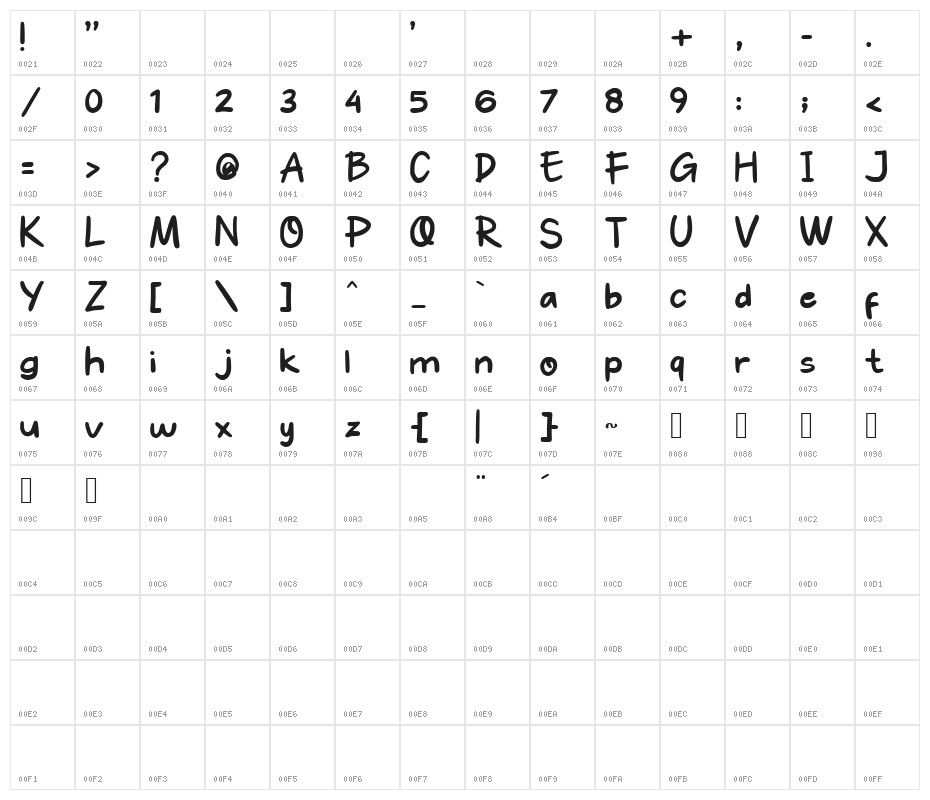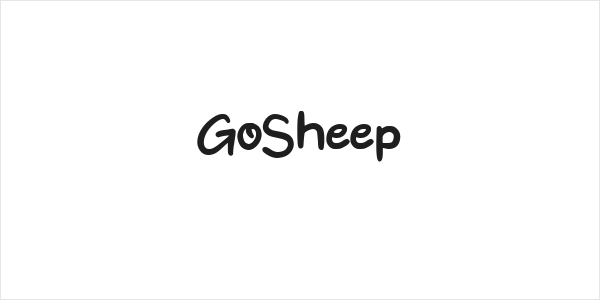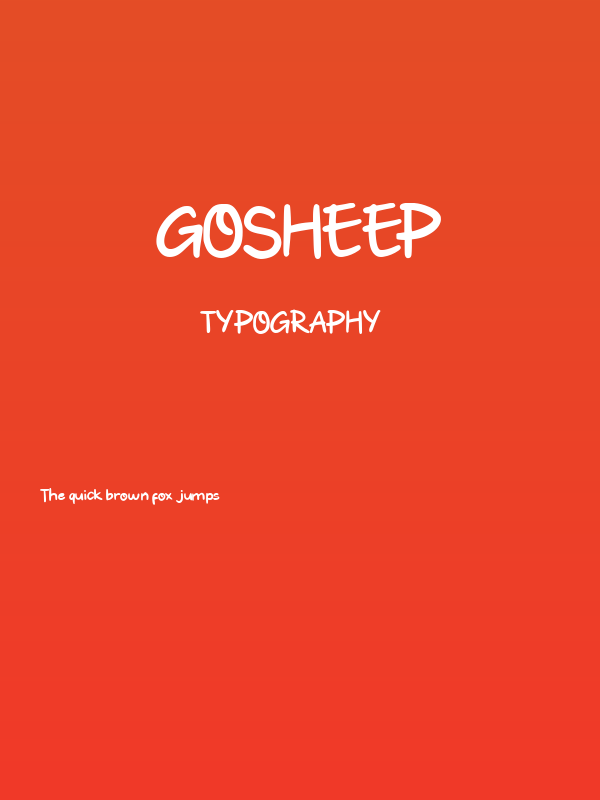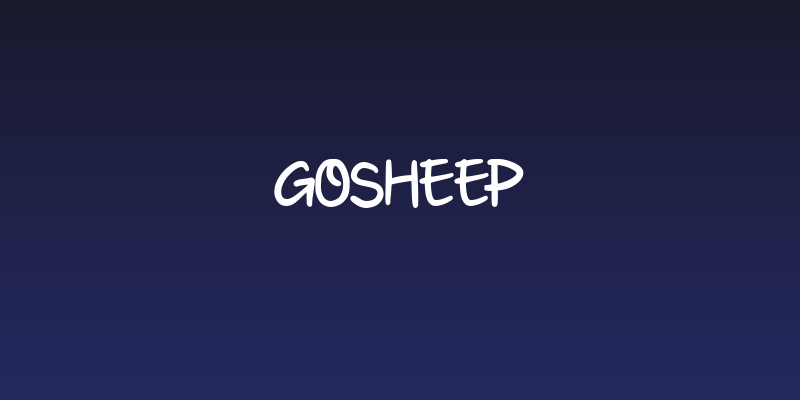
GoSheep Font
GoSheep Description
This playful and rounded font exudes a friendly and approachable vibe, making it ideal for casual and informal designs. The letters are bold and slightly irregular, giving a hand-drawn appearance that adds a touch of whimsy. The uppercase and lowercase characters are well-balanced, with consistent stroke widths that maintain readability. The numerals and special characters follow the same playful style, ensuring a cohesive look across all text elements. This font is perfect for projects that aim to convey warmth and creativity.
Overall StylePlayful
Use CaseHeadlines, Logos, Informal text
Proposed ProjectsChildren's books, playful branding, greeting cards, and casual invitations.